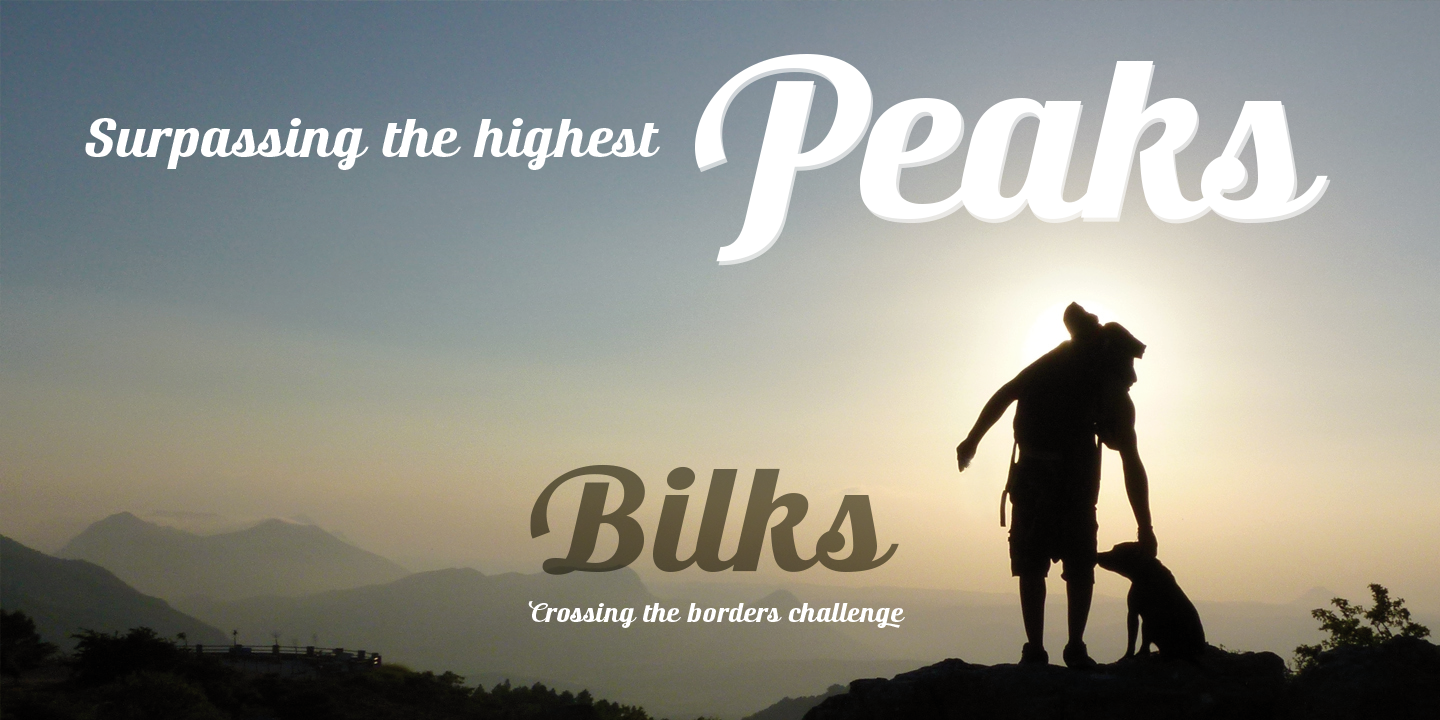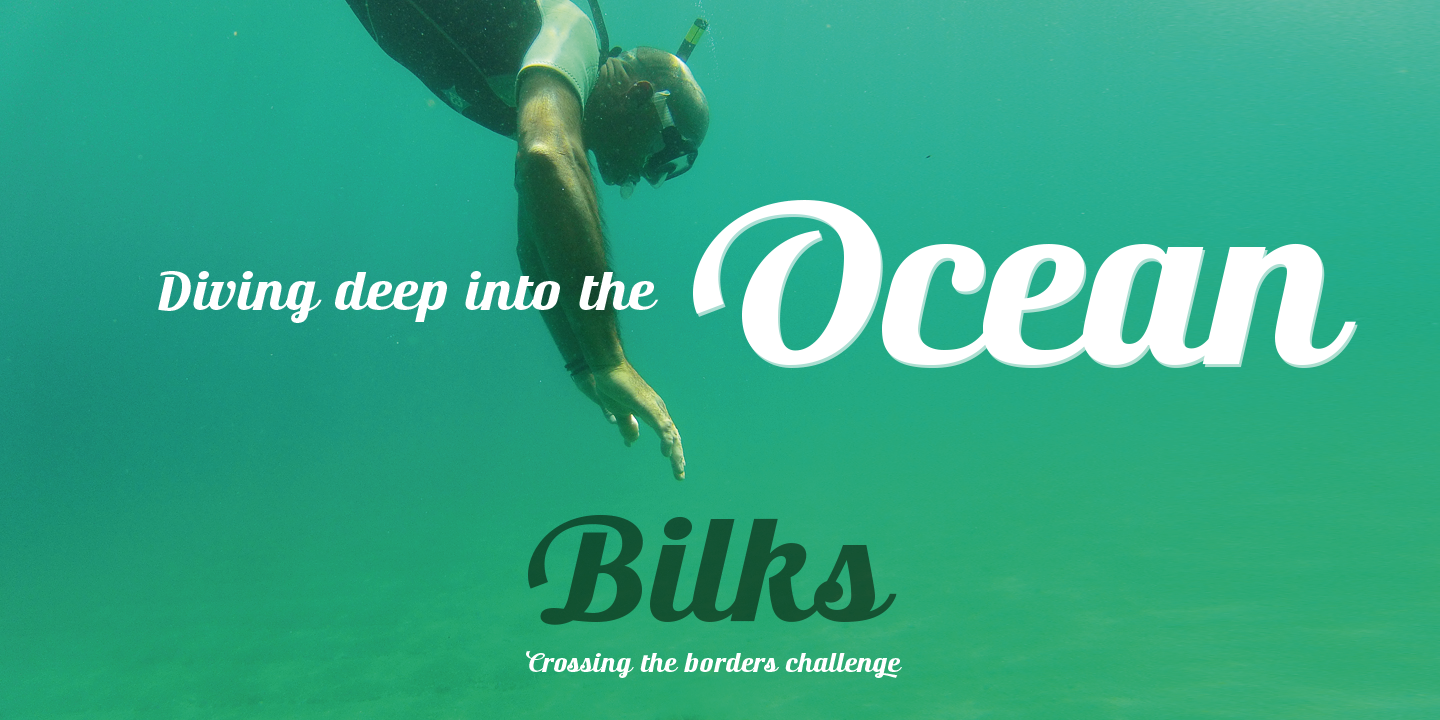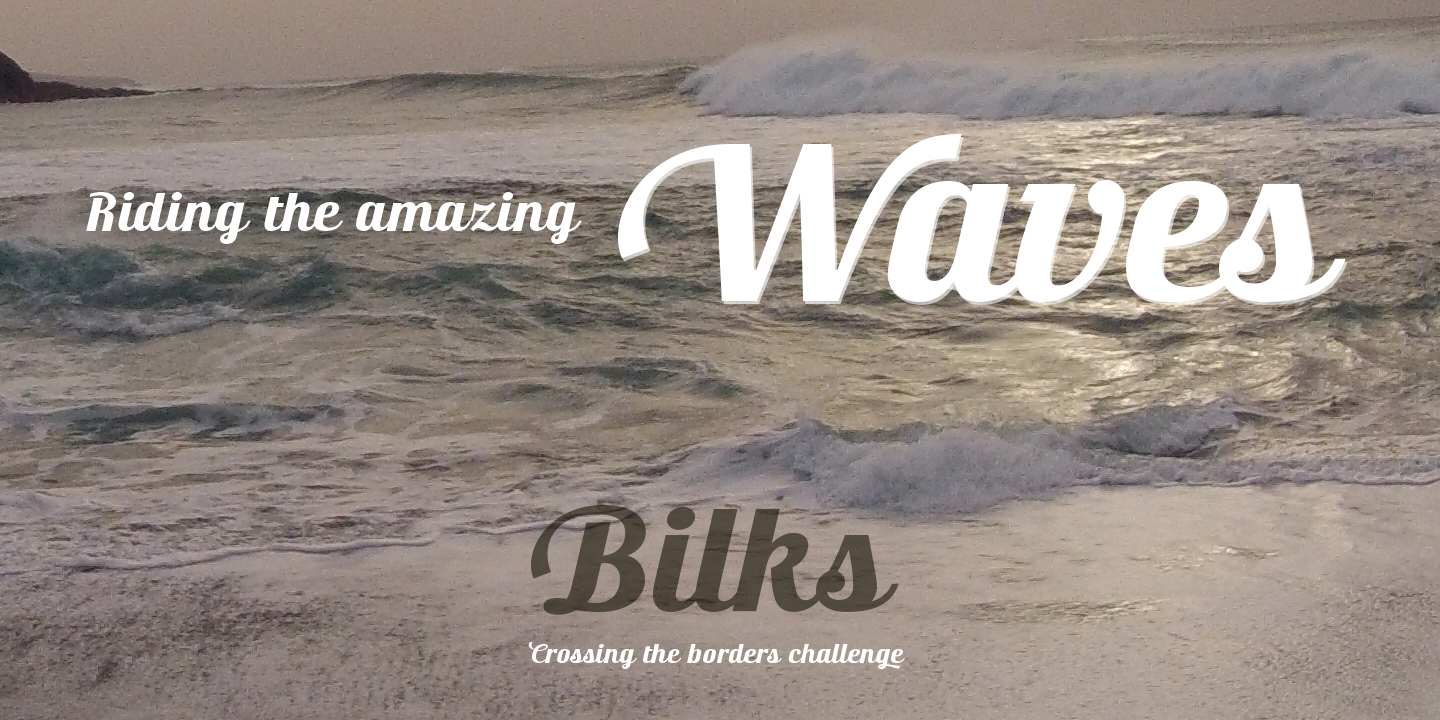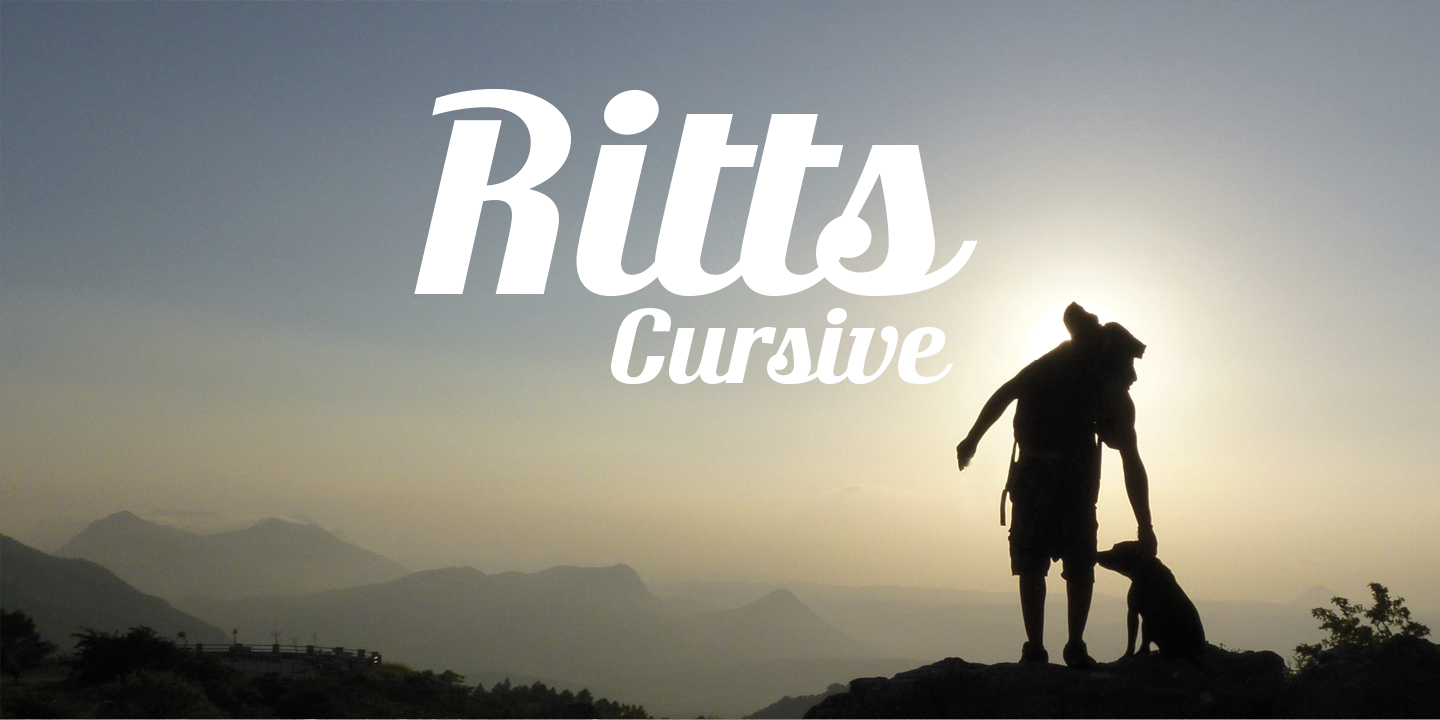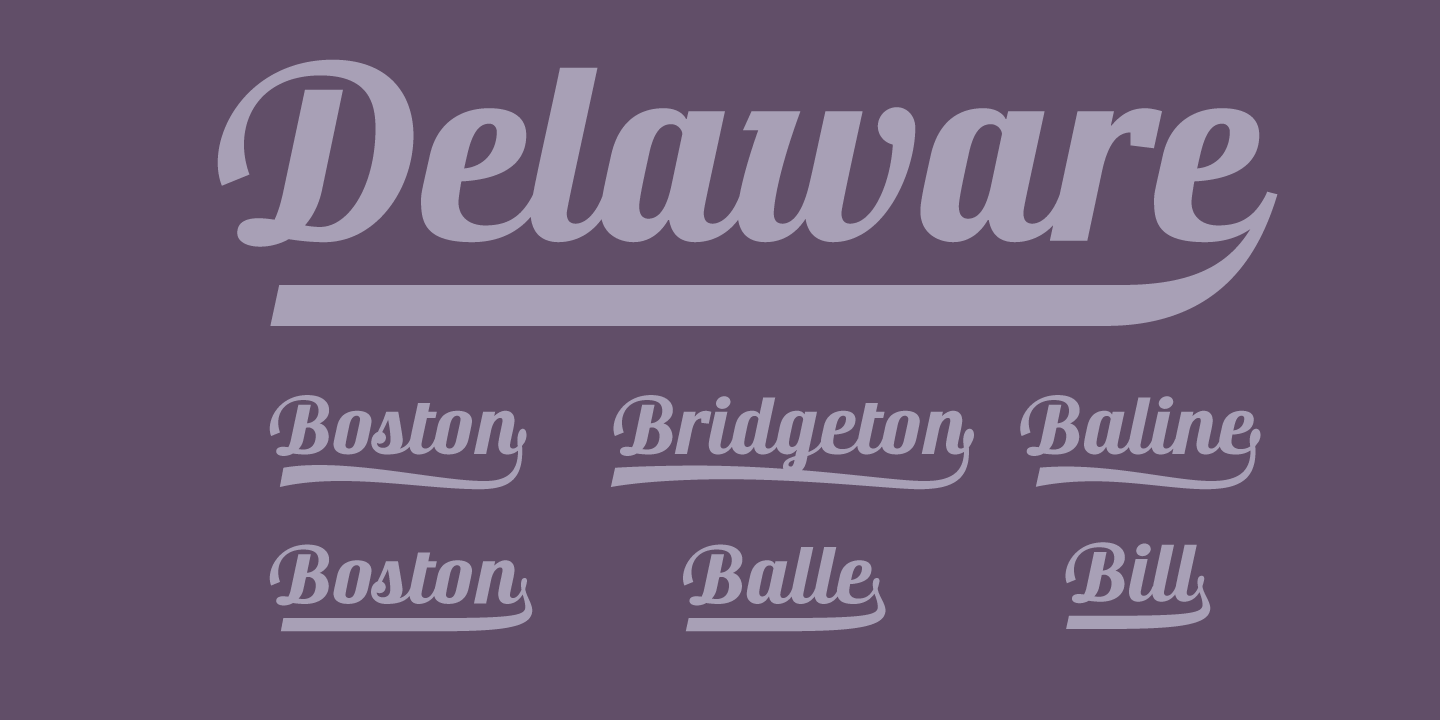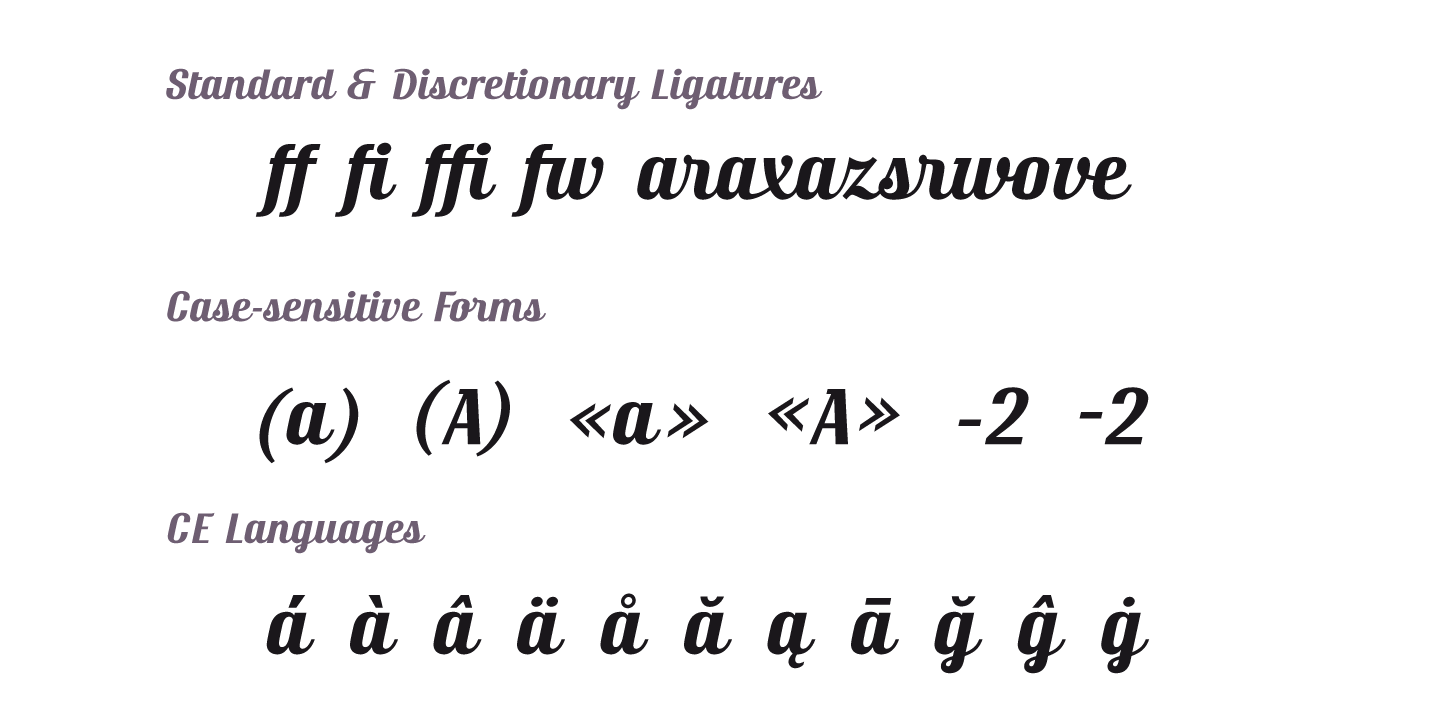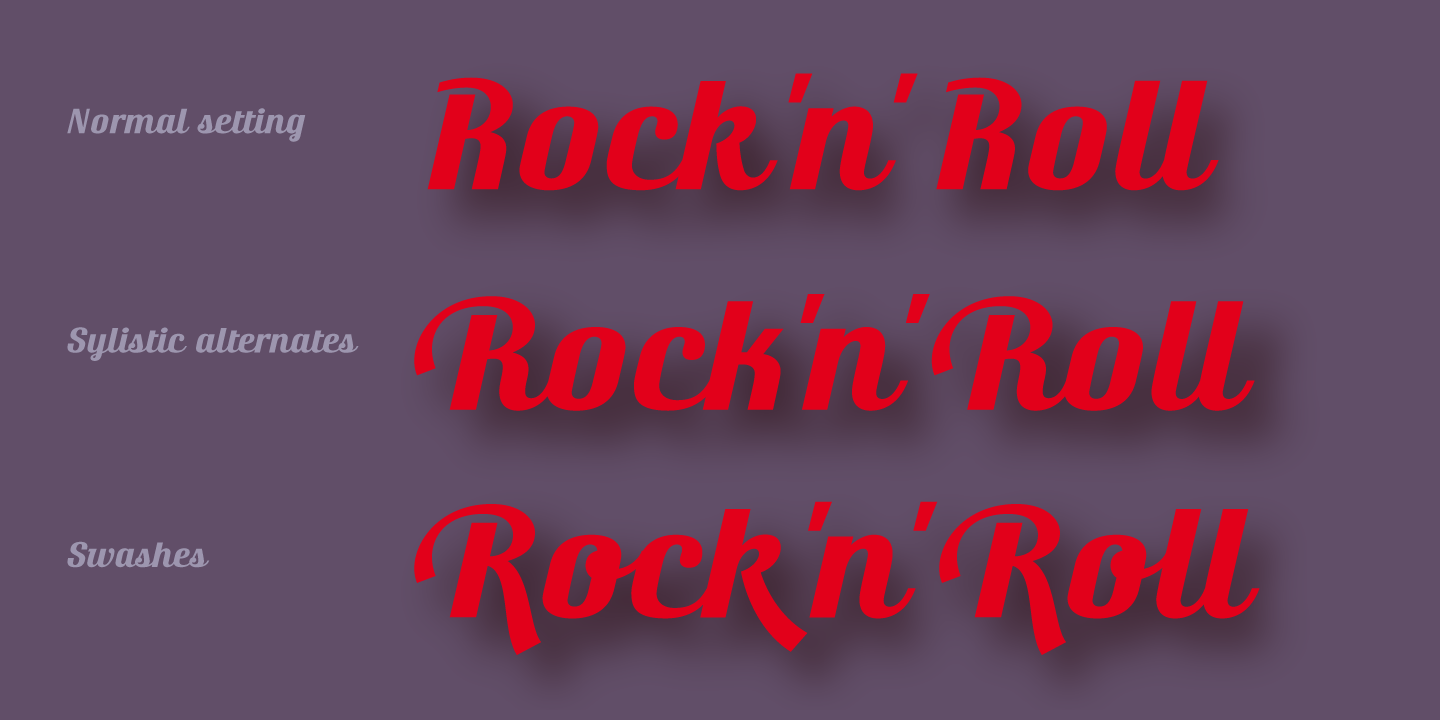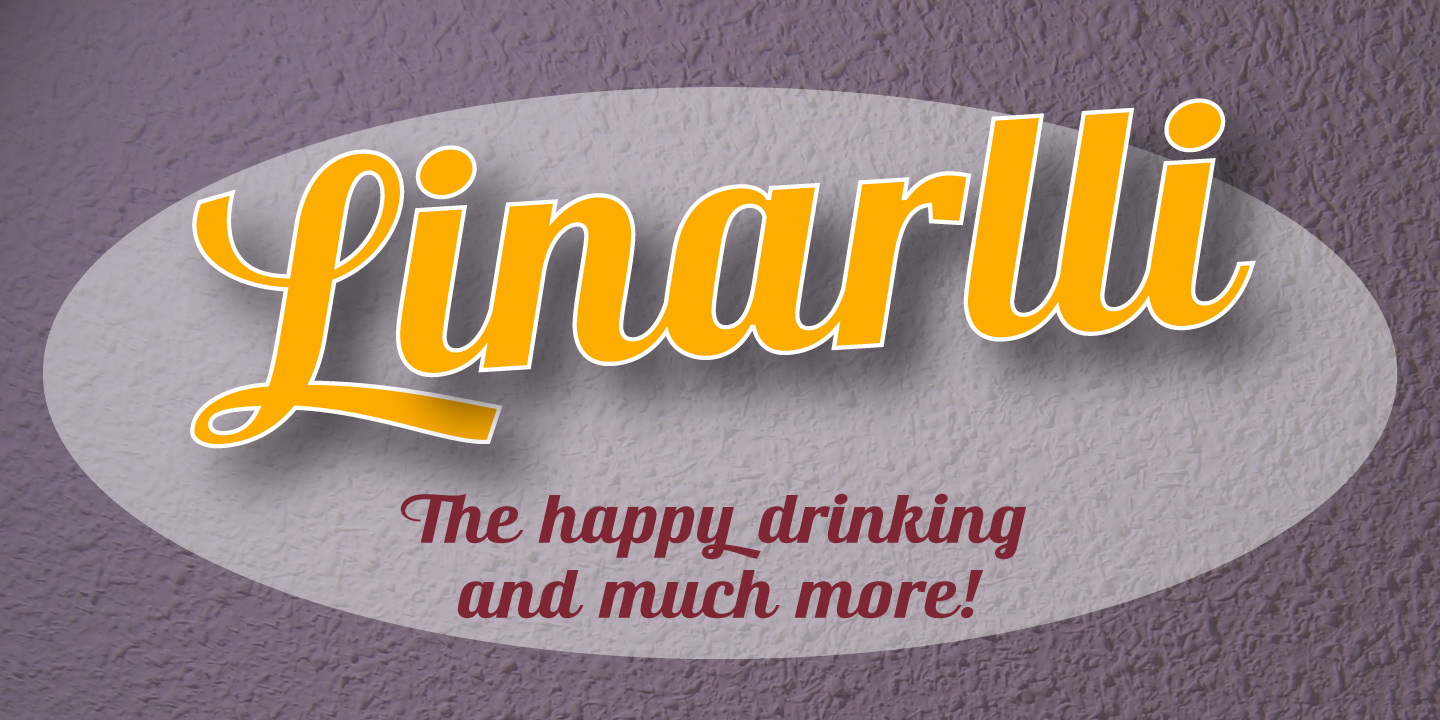
Ritts Cursive
A Vintage Casual Connecting Script
Ritts Cursive is a vintage-inspired casual connecting script—sometimes called joined-up, joint, or running handwriting—that captures the warmth and fluidity of true penmanship. While formal cursive tends to stay fully connected, this relaxed style balances smooth joins with natural pen lifts, creating a dynamic handwritten rhythm.
Compact Structure & Tall Capitals
What sets this typeface apart is its compact, slightly condensed structure and beautifully consistent flow. Each glyph emulates the character of real ink on paper, with expressive strokes and crisp edges that echo the craftsmanship of mechanically printed lettering. Unlike most modern italics, its capital letters rise to the full height of the ascenders, giving headlines and logos a bold, distinguished presence.
Inspired by the 1942 ATF Legacy
Originally inspired by the iconic 1942 ATF brush script by Robert E. Smith, Ritts Cursive carries forward a legacy that has influenced many beloved contemporary scripts, including Wisdom Script, Mission Script, Motion Picture, Thirsty Script, Lobster, and more.
700+ Glyphs & Advanced Features
With over 700 glyphs, extensive Central European language support, and a rich arsenal of OpenType features—swashes, contextual alternates, old-style figures, discretionary and standard ligatures, case-sensitive forms, tails, and ornaments—this font delivers both versatility and vintage charm.
Perfect for Retro Branding & Signage
Perfect for branding, packaging, signage, and any project that needs authentic handwritten elegance, Ritts Cursive offers a timeless script style crafted for modern creativity.